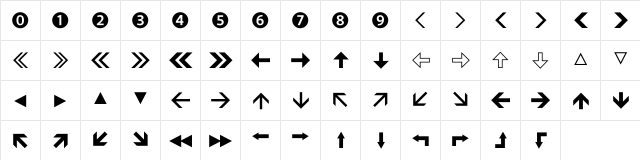
Leitura Symbols Arrows
Design Context for Leitura Symbols Typeface
Leitura Symbols is a composed and adaptable typeface that performs quietly and consistently across a wide range of design contexts.